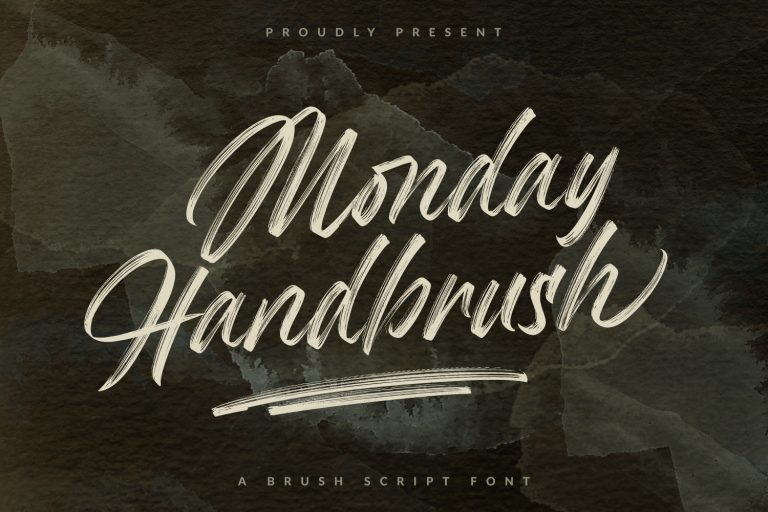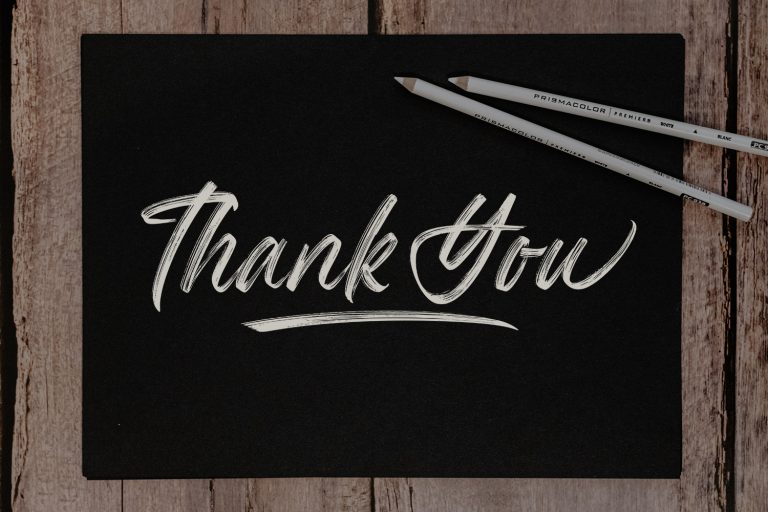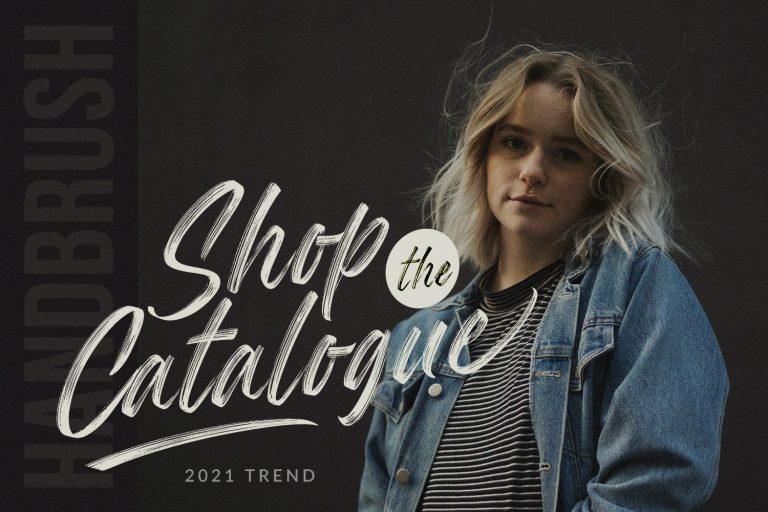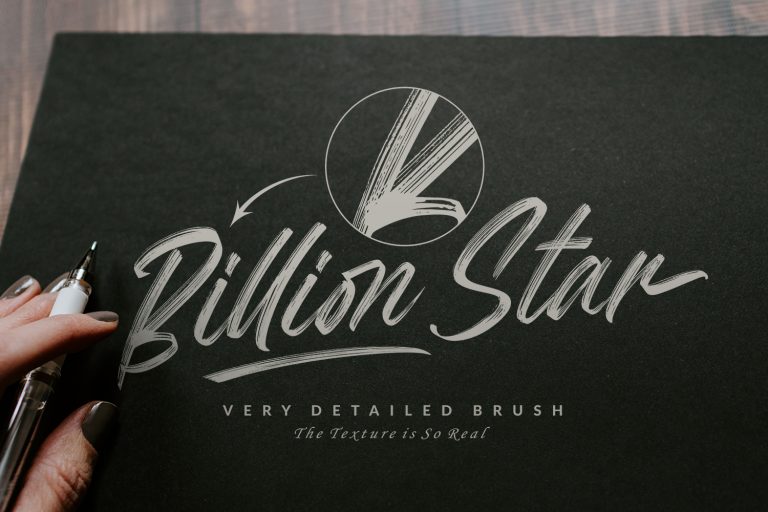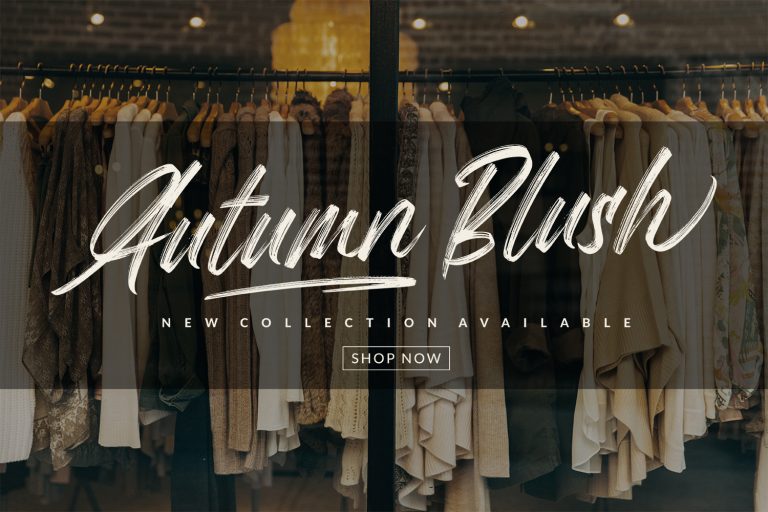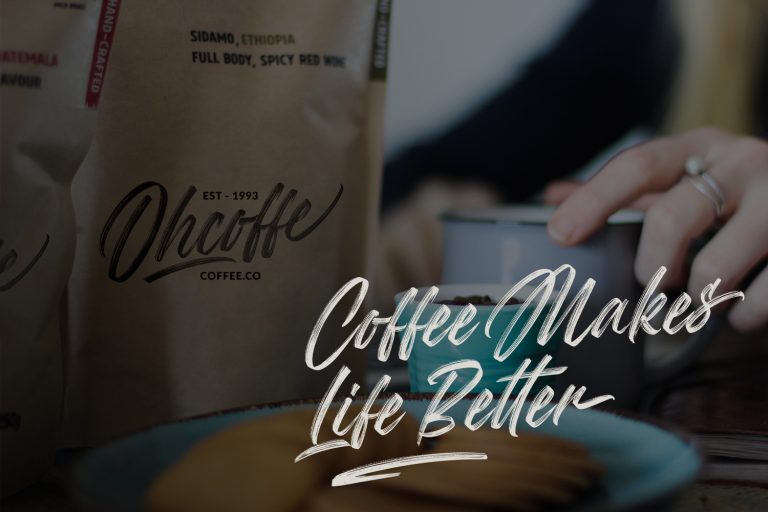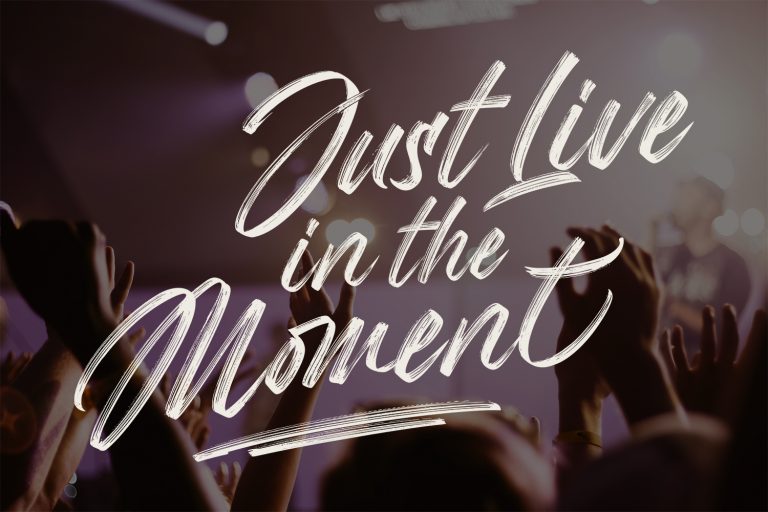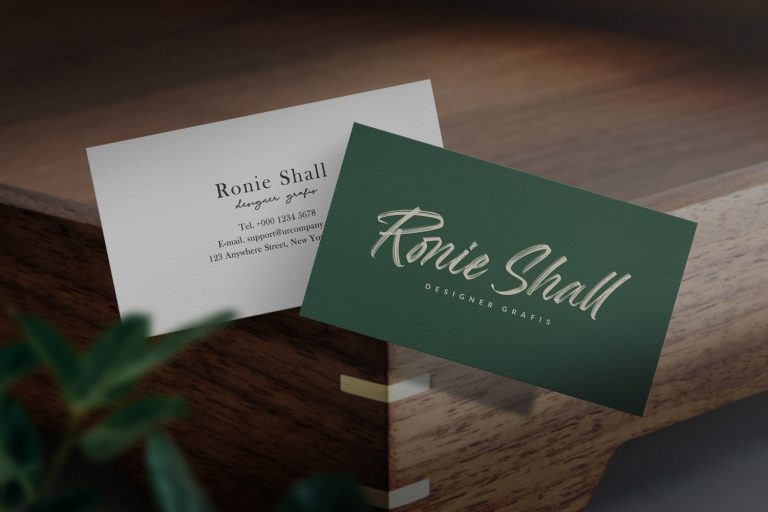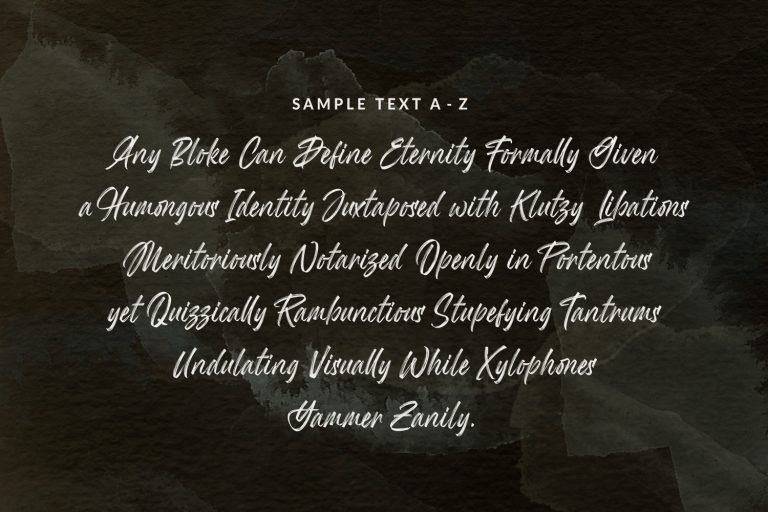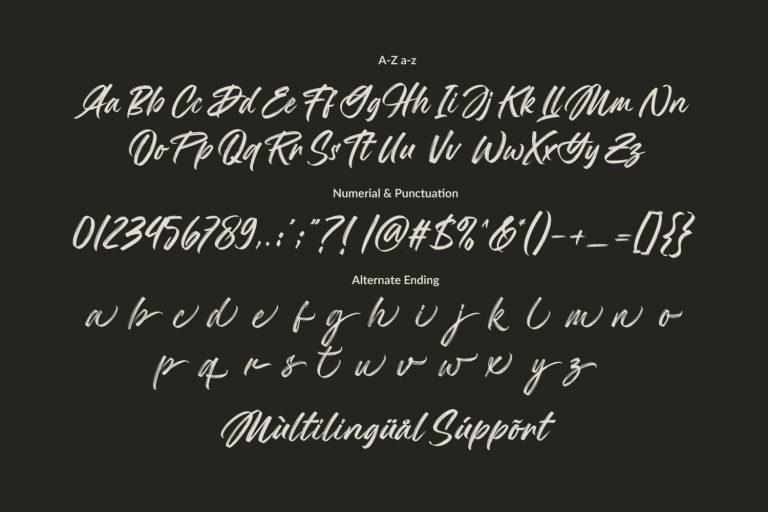
Monday Handbrush
Monday Handbrush font is a supercharged brush font style, street-wise brush font bursting with energy.
With extra attention to quick strokes and sharp details.
This font is perfect for challenging jobs, titles, t-shirts, websites,
hoodies, clothing, headline, logotype, branding, advertising, event and
various print and digital media with energy.
it has an extensive lingual support, covering European and Asian Latin scripts. The font contains
all characters you’ll ever need, including all punctuation and numbers.
Extra swash and Ending alternates